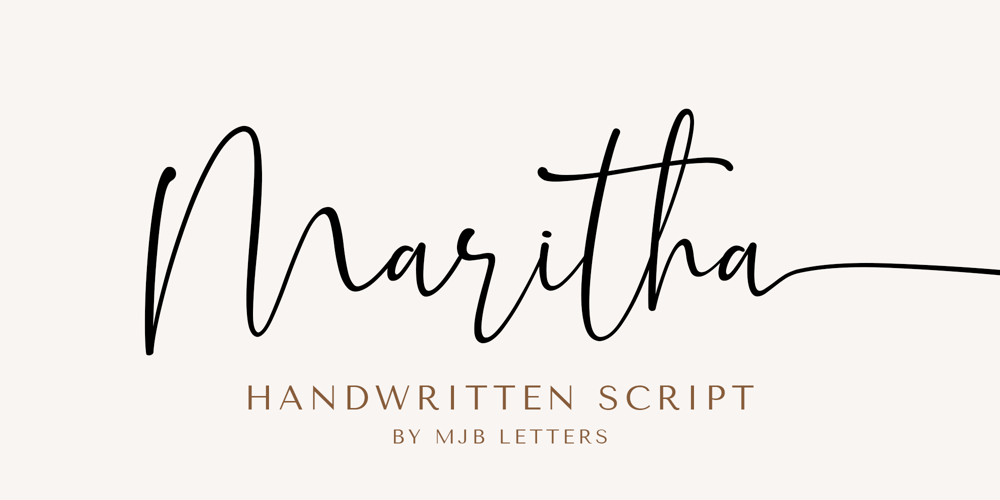
Maritha Font Family was designed by Muhammad Mujibulloh and published by MJB Letters. Maritha contains 1 styles and family package options. Maritha is a classy handwritten script, it has beautiful beginning and ending swashes, this font is perfect for branding design, packaging, logo design, watermark, fashion design, wedding invites, and more.this font includes the full set of lowercase and uppercase letters, numeral, punctuation, multilanguage support, titling, and ending swashes.